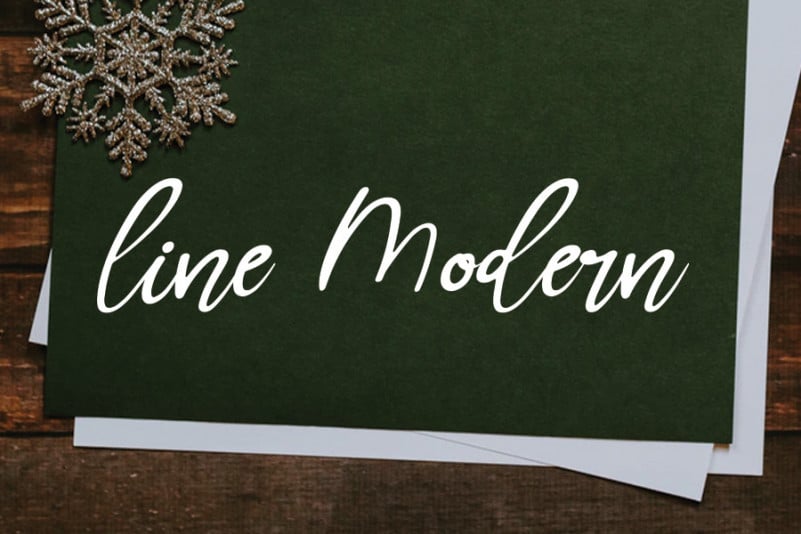
Jollia Bolla Handwritten Font
Jollia Bolla Handwritten Font is a magical handwritten font carefully created with a touch of elegance. It features an incredibly classic style, while still keeping a friendly feel. This font is the perfect font for making original and outstanding designs.
the latest style letters are perfect for wall displays, wedding invitations, social media post logos, advertisements, product packaging, product designs, labels, photography, watermarks, invitations, stationery, and any project that requires taste handwriting.